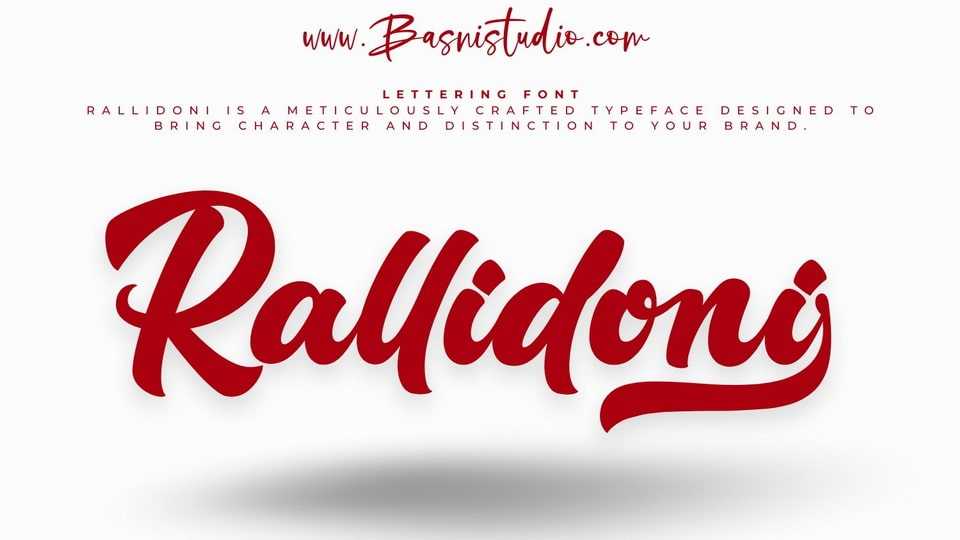
Download Rallidoni font, a meticulously crafted typeface designed to bring character and distinction to your brand. Rallidoni has a unique logo lettering style – a signature design that sets you apart.